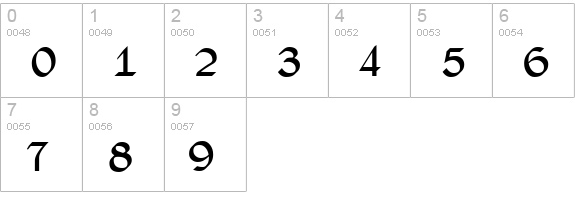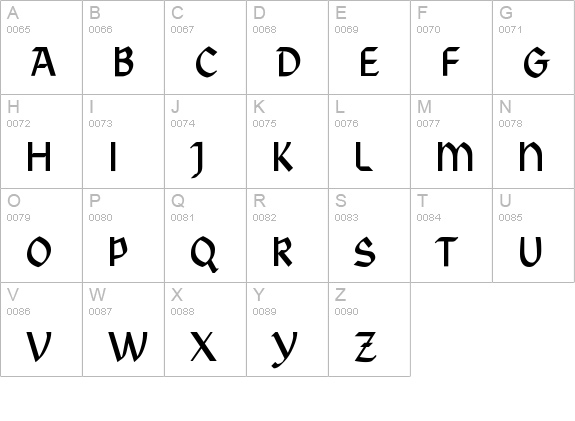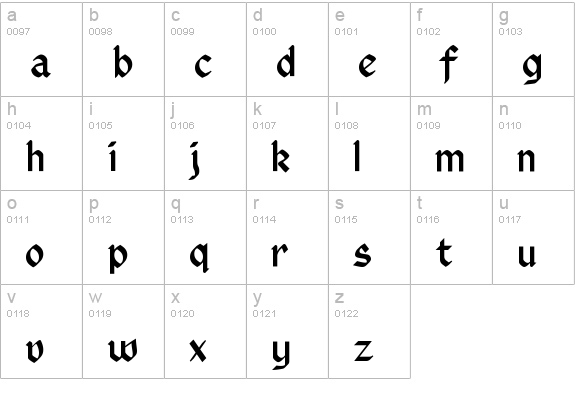
Rundigsburg Bold Font Details
Rundigsburg Bold is a strong, high-contrast variant in the Rundigsburg typeface family \xE2\x80\x94 well suited to headlines, attention-grabbing titles, and strong calls-to-action.
Rundigsburg Bold font is a striking and versatile typeface that exudes modernity and sophistication. With its bold letterforms and clean lines, this font is perfect for making a bold statement in any design project. Whether you're working on a poster, logo, or website, Rundigsburg Bold will add a touch of elegance and style. What sets Rundigsburg Bold font apart is that it is not only visually appealing but also free to use. Yes, you read that right - this high-quality font is freely available to download at FontsMarket.com. So go ahead and elevate your designs with Rundigsburg Bold font today!